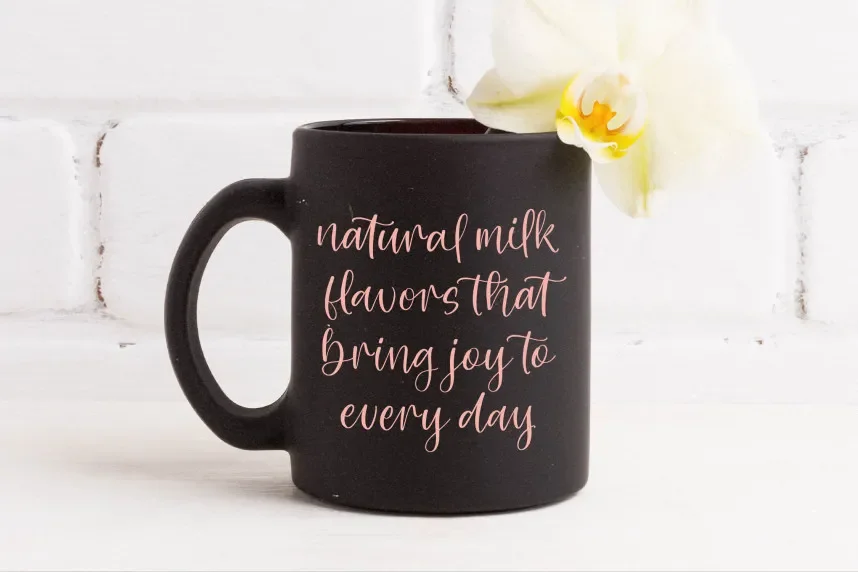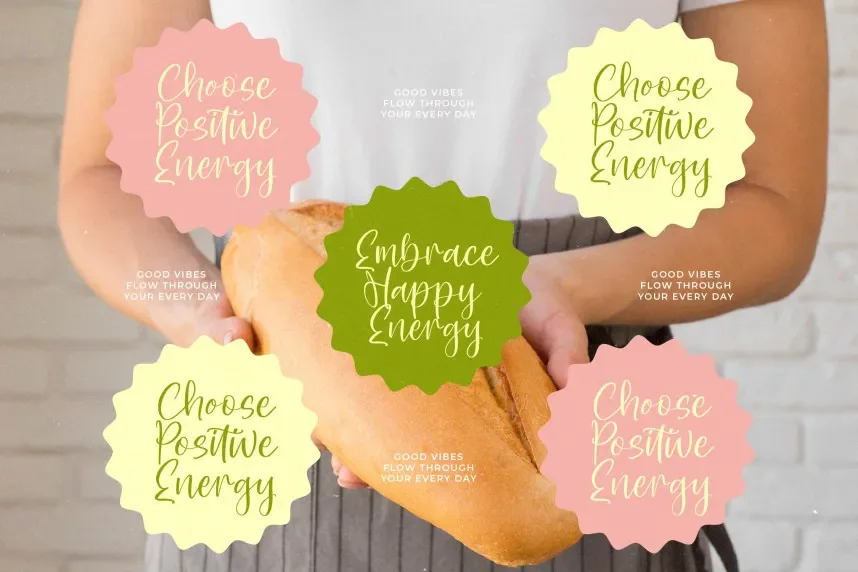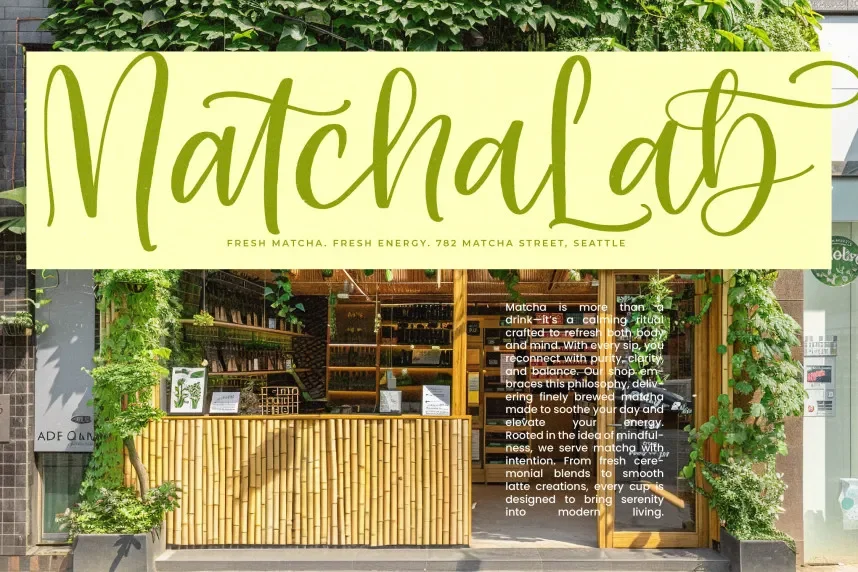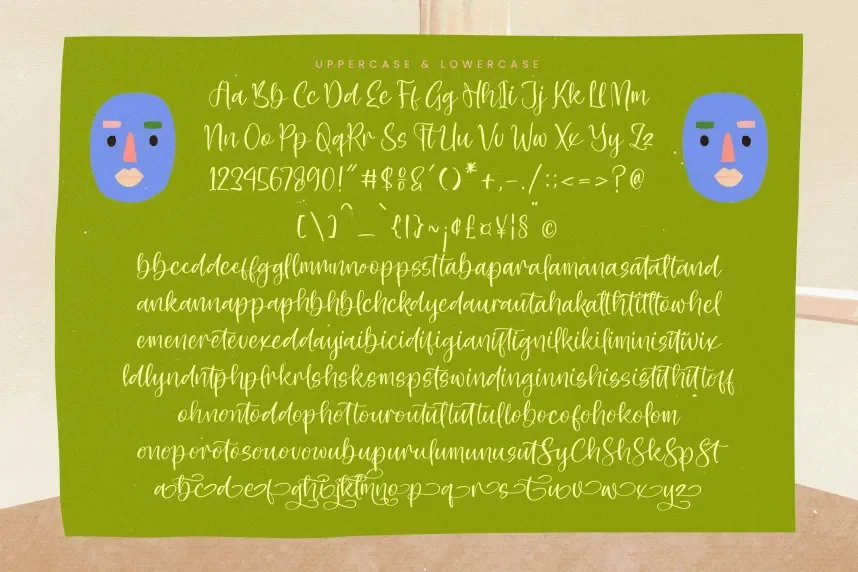
Shelter Natural Font is a natural, handwritten script typeface with smooth curves and an organic, personal feel. Its fluid design makes it perfect for creative projects that require a relaxed, casual touch, such as invitations, branding, and social media posts.
Best used for wedding invitations, personal branding, and casual stationery, Shelter Natural Font pairs well with simple sans-serif fonts for clarity. Available in TTF and OTF formats, it includes a commercial-use license. Be sure to check the license for commercial use.